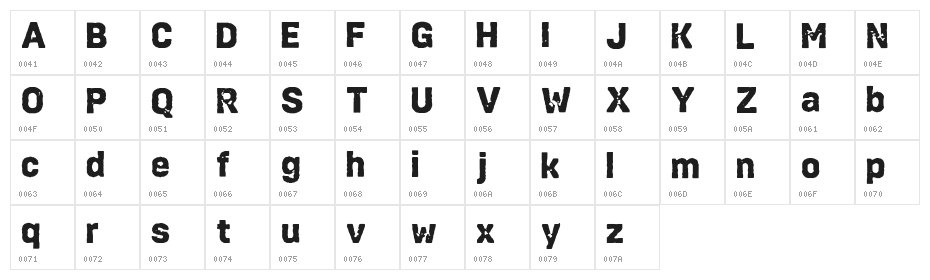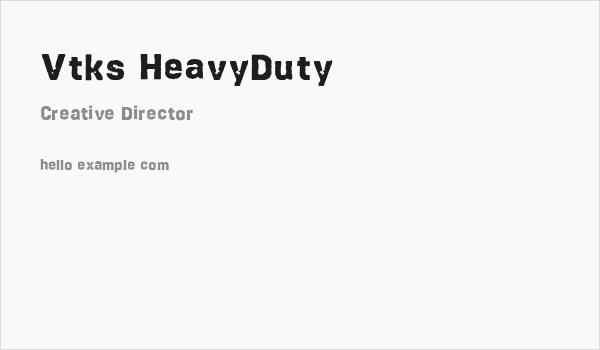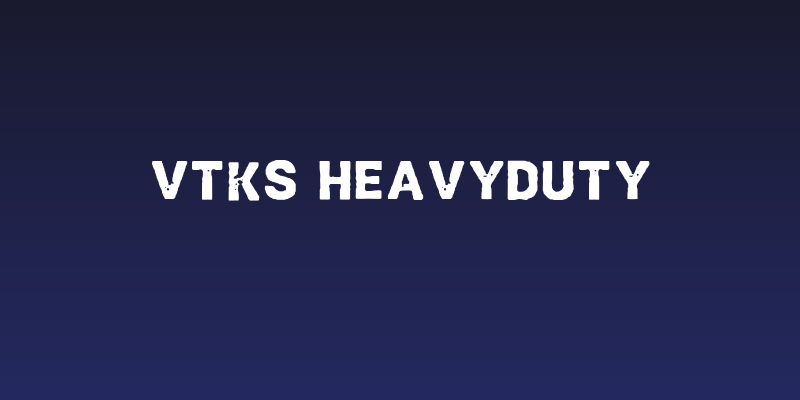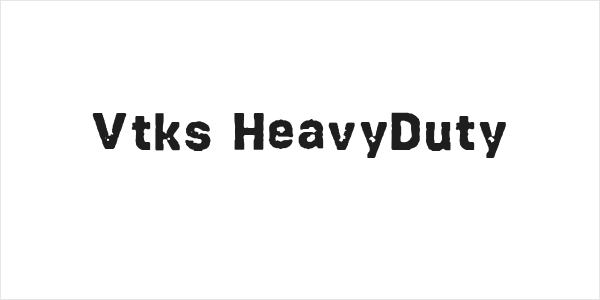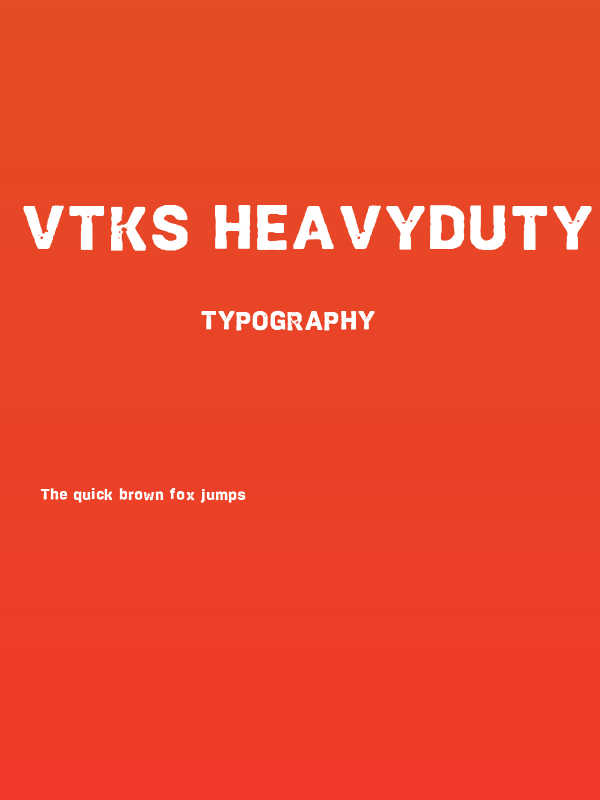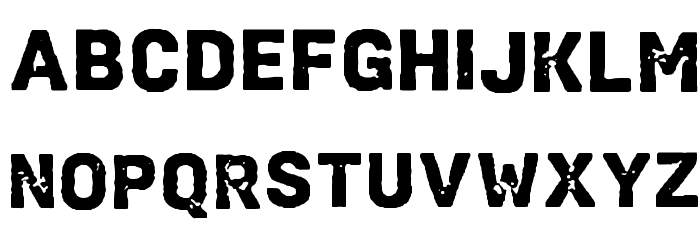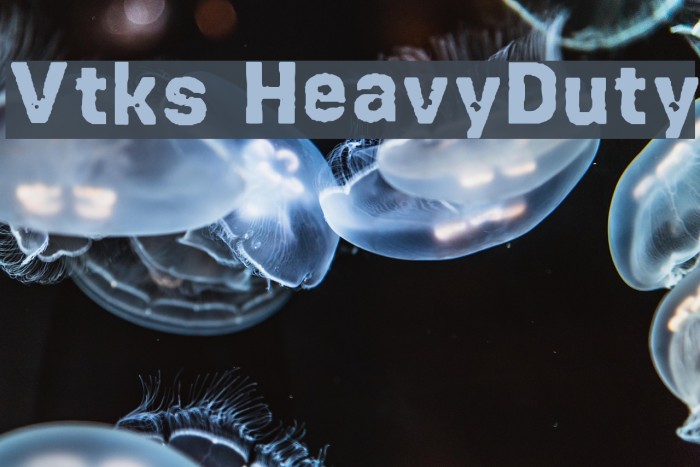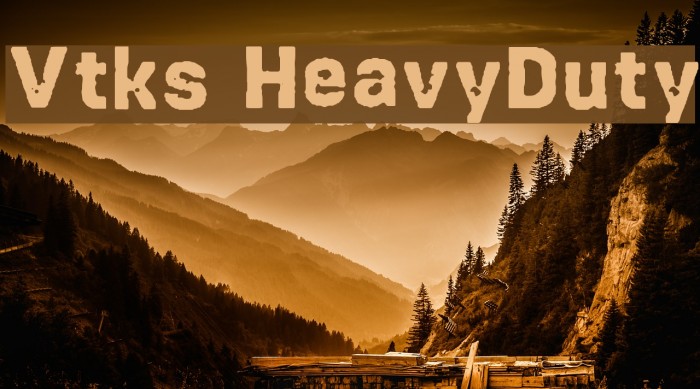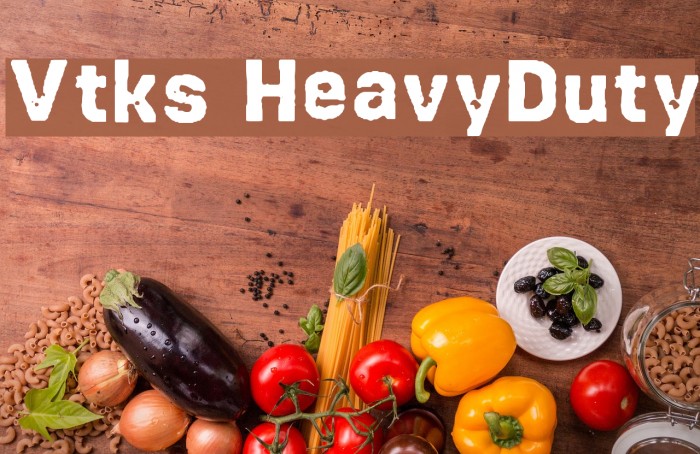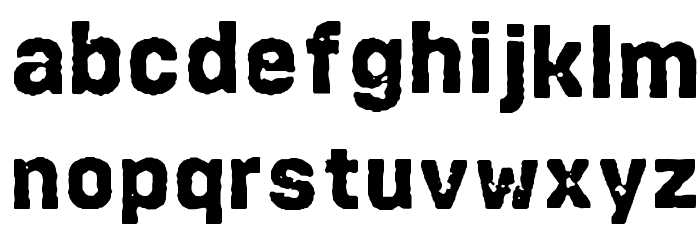
Vtks HeavyDuty Font
This font features a bold, distressed style with a rugged, industrial feel. The characters are heavily weighted, with a rough texture that gives them a worn, vintage appearance. The uppercase and lowercase letters maintain a consistent thickness, while the numbers and special characters follow the same design ethos. The font's boldness and unique texture make it stand out, ideal for projects that require a strong visual impact. Its distressed look suggests a sense of history and durability, making it suitable for themes related to strength and resilience.
| Overall Style | Vintage, Industrial |
| Proposed Projects | Ideal for posters, logos, branding, and any design needing a strong, vintage industrial look. |